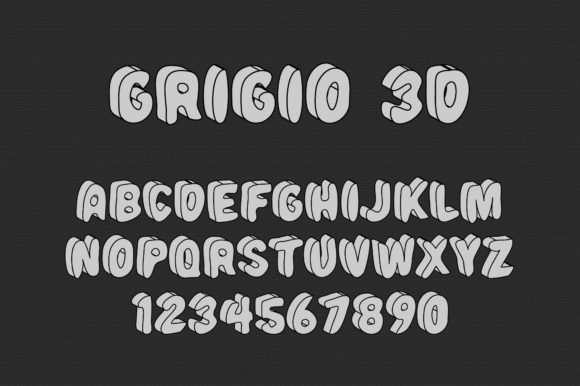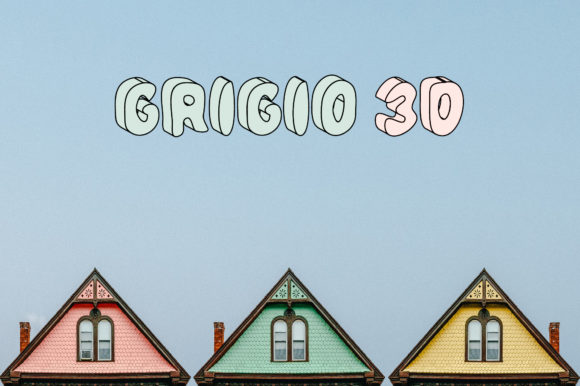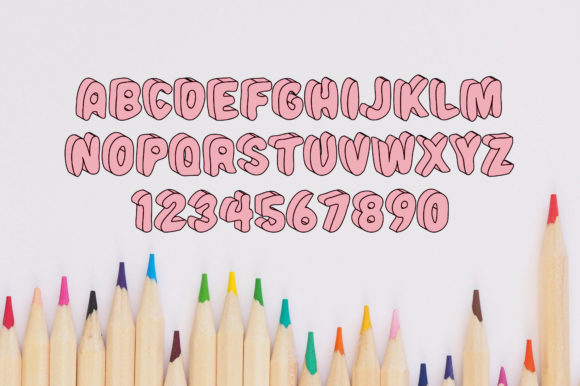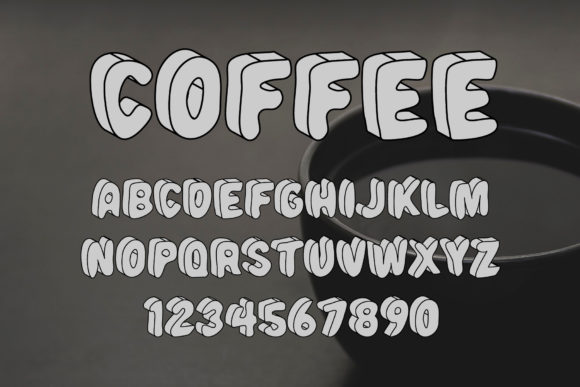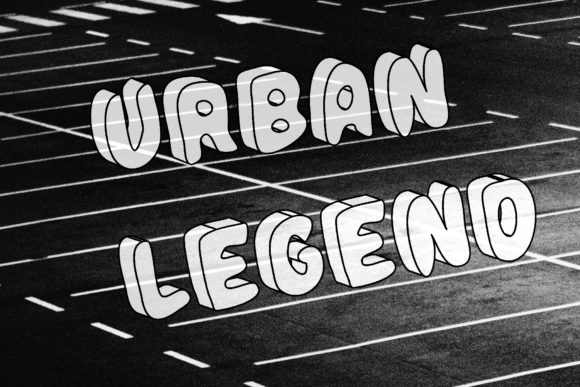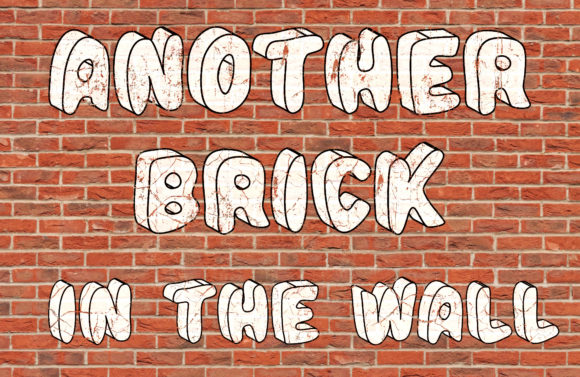
Introducing Grigio Font: Add a Pop of Joy to Your Designs
Are you tired of using the same old fonts in your designs? Look no further than Grigio Font, a casual and interesting 3D color font that’s sure to elevate your creative projects. With its cartoon-like charm and joyful vibe, Grigio Font is perfect for designers and crafters looking to add a touch of whimsy to their work.
What is Grigio Font?
Grigio Font is a unique and eye-catching 3D color font that’s designed to bring a smile to your face. Its playful, cartoon-like style makes it perfect for a wide range of design projects, from greeting cards and invitations to social media graphics and branding materials. Whether you’re a professional designer or a DIY crafter, Grigio Font is sure to inspire your creativity and take your designs to the next level.
Key Features of Grigio Font
- 3D Color Font: Grigio Font is a stunning 3D color font that adds depth and dimension to your designs.
- Cartoon-like Style: With its playful, cartoon-like style, Grigio Font is perfect for designs that require a touch of whimsy and fun.
Tips and Tricks for Using Grigio Font
Here are a few tips and tricks to help you get the most out of Grigio Font:
- Experiment with Colors: Grigio Font is a color font, so don’t be afraid to experiment with different colors and combinations.
- Mix and Match: Try pairing Grigio Font with other fonts and design elements to create unique and eye-catching designs.
- Play with 3D Effects: Take advantage of Grigio Font’s 3D effects to add depth and dimension to your designs.
Who is Grigio Font for?
Grigio Font is perfect for:
- Graphic Designers: Add a touch of whimsy and fun to your designs with Grigio Font.
- Crafters: Use Grigio Font to create stunning DIY projects, from greeting cards to home decor.
- Small Business Owners: Elevate your branding and marketing materials with Grigio Font’s playful, cartoon-like style.
In conclusion, Grigio Font is a unique and versatile 3D color font that’s perfect for designers and crafters looking to add a touch of joy and whimsy to their work. With its cartoon-like style, compatibility with a range of design software, and ease of use, Grigio Font is sure to become a favorite in your design arsenal. So why wait? Download Grigio Font today and start creating stunning designs that bring a smile to your face!